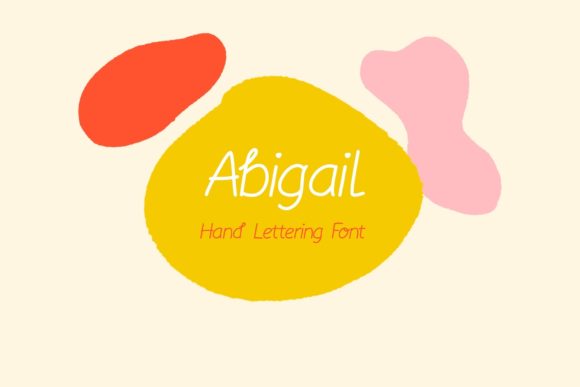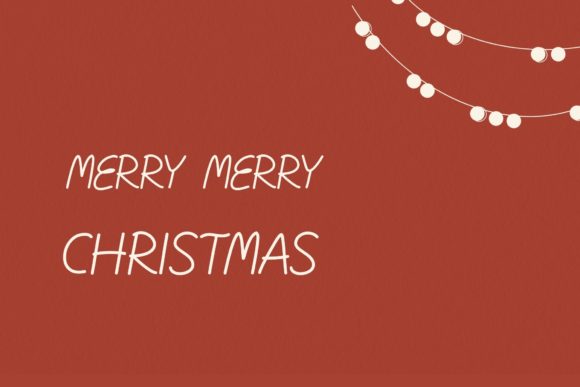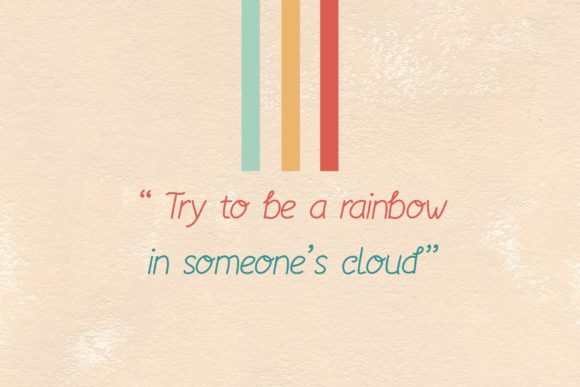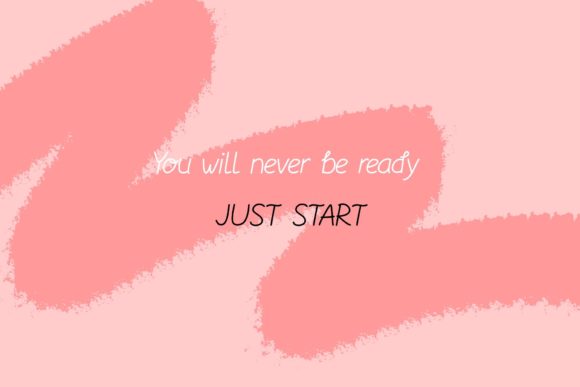
Abigail Font
About Abigail Font
Abigail is a cute and dainty handwritten font, perfect for creative projects that need a natural and authentic feel! It works great for logos, invitations, greeting cards, storybooks, children’s designs, stationery, and more.